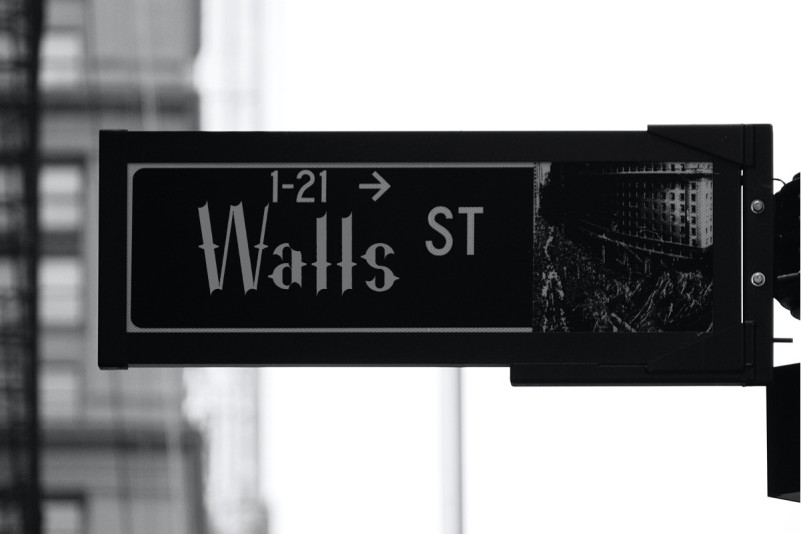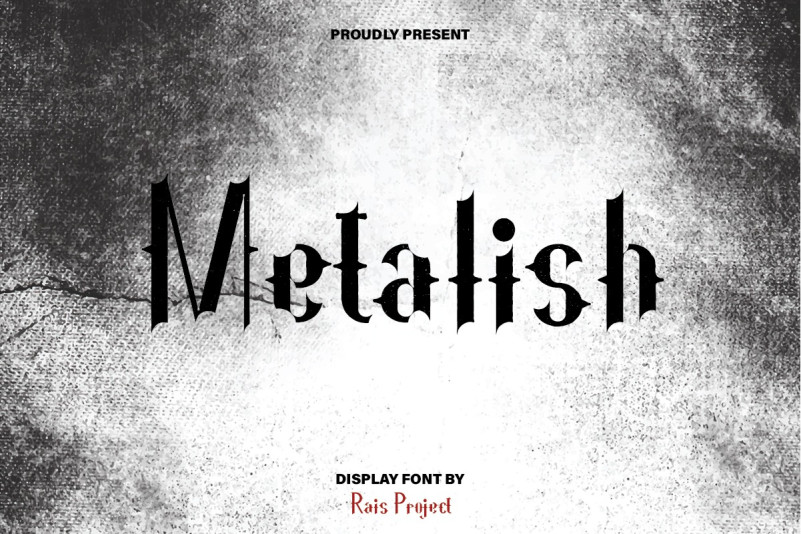
Metalish Font
Metalish Font is a display Sans Serif horror font family, designed by RaisProject. It is our new font on the market. It has unique, exclusive and special style.  The font was handcrafted for any your special projects including : headlines, promotion, events, branding, advertising, magazine, signage, invitation, stationery, social media posts, label, or and any projects that need unique strong style. The industries for this font is Game, Movie, Music, Sport, Motorclub, etc